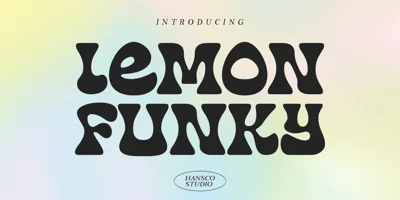
Lemon Funky Font
Lemon Funky Font is perfect for citrus beverage branding, fresh fruit market signage, summer festival promotions, funky café menu designs, zesty food truck marketing, and vibrant tropical party invitations. Its energetic character makes it ideal for juice bars, citrus growers, summer event planners, funky restaurant chains, and any application requiring zesty typography that conveys citrus freshness, funky energy, and the vibrant spirit of sunny, vitamin-packed citrus experiences and upbeat lifestyle brands.
Lemon Funky Font is exciting because it radiates the zesty energy and vibrant freshness of citrus fruit through playfully funky letterforms that burst with the same invigorating spirit as fresh lemon juice on a sunny day. Its funky proportions and citrus-inspired details evoke the refreshing tang of fresh citrus and the uplifting energy that comes from bright, natural flavors, making it perfect for brands seeking to inject zesty vitality and funky personality into their communications. The font's funky character transforms text into expressions of citrus celebration.
Lemon Funky Font family includes zestfully-designed weight variations typically featuring Light, Regular, Medium, and Bold options with funky styling that maintains citrus authenticity. The family often incorporates citrus symbols, funky ornaments, and tropical elements designed for fresh beverage applications, providing designers with comprehensive tools for creating authentic, citrus-focused typographic compositions.
When selecting vibrant citrus typography solutions, Lemon Funky Font represents an exceptional choice for fresh and energetic branding projects. This zesty typeface brings instant citrus authenticity to any design, making it invaluable for beverage companies, fresh food brands, and summer entertainment venues celebrating citrus vitality. Whether you're developing citrus beverage campaigns, creating summer festival materials, or designing funky café branding, Lemon Funky Font provides the zesty energy and citrus freshness essential for capturing vibrant flavor experiences in today's health-conscious fresh food marketplace.